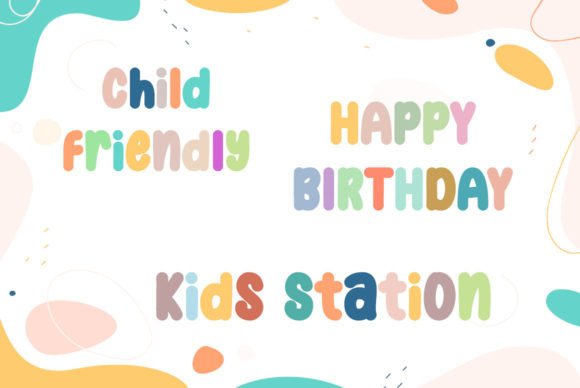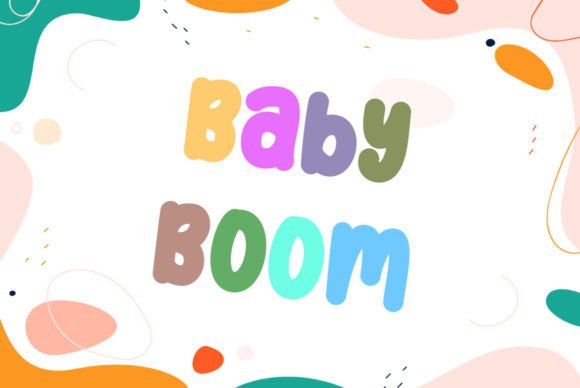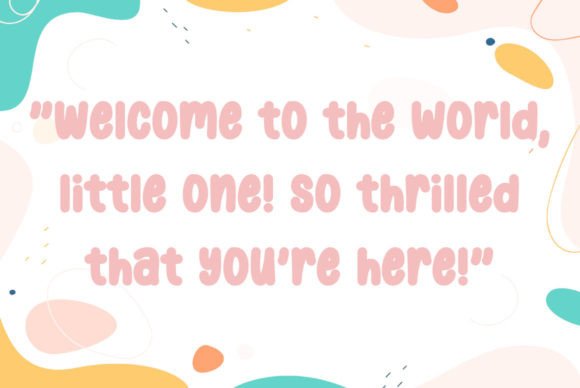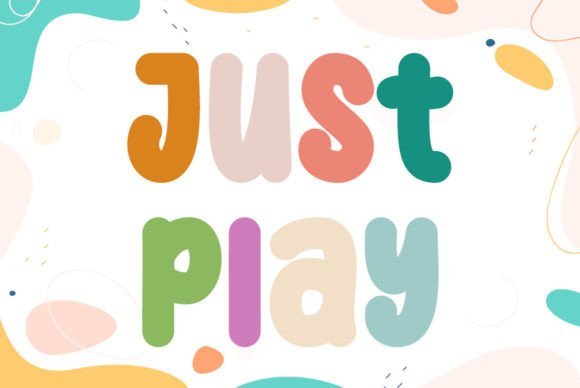
Introduction to Just Play Font
Just Play is a cute happy font that will bring your design into a happy and fun mood.
Perfect for creating a wide variety of new designs to match products such as banners, content, mugs, cards, shirts, stationery, Wall art, social media posts, and more .
Key Features of Just Play Font
Why Choose Just Play Font?